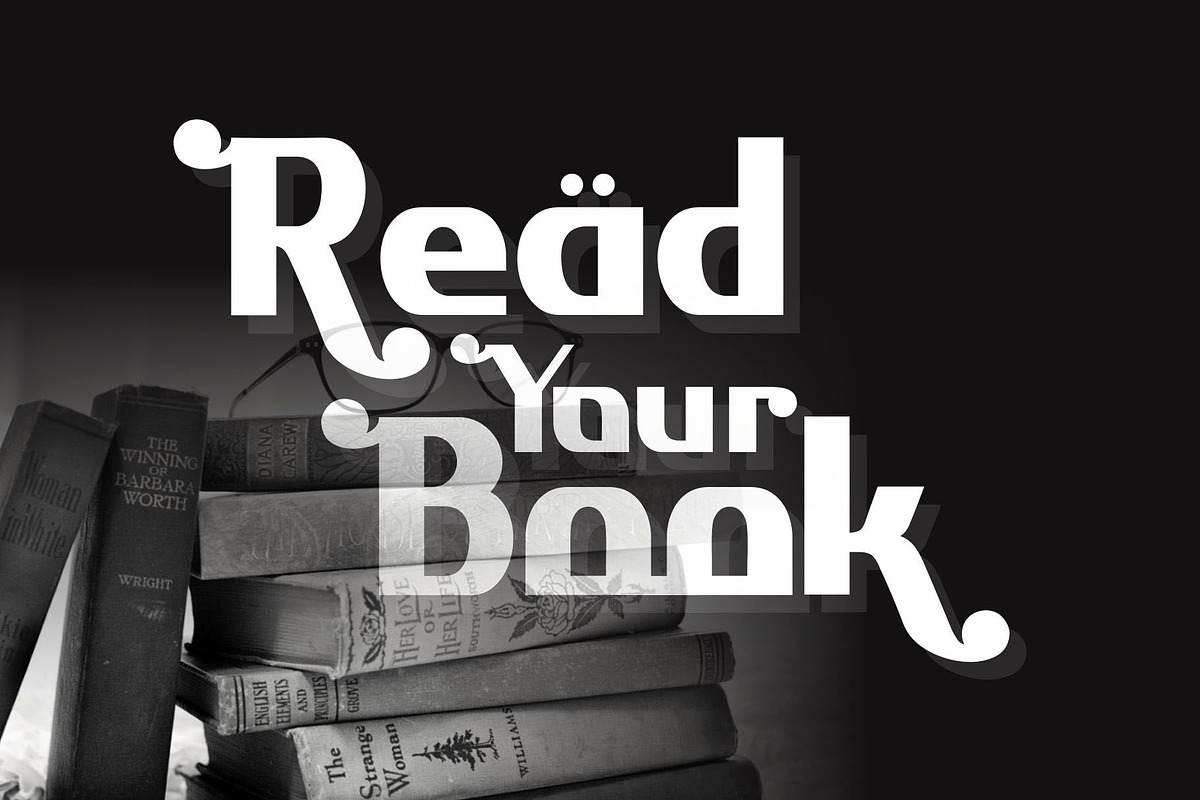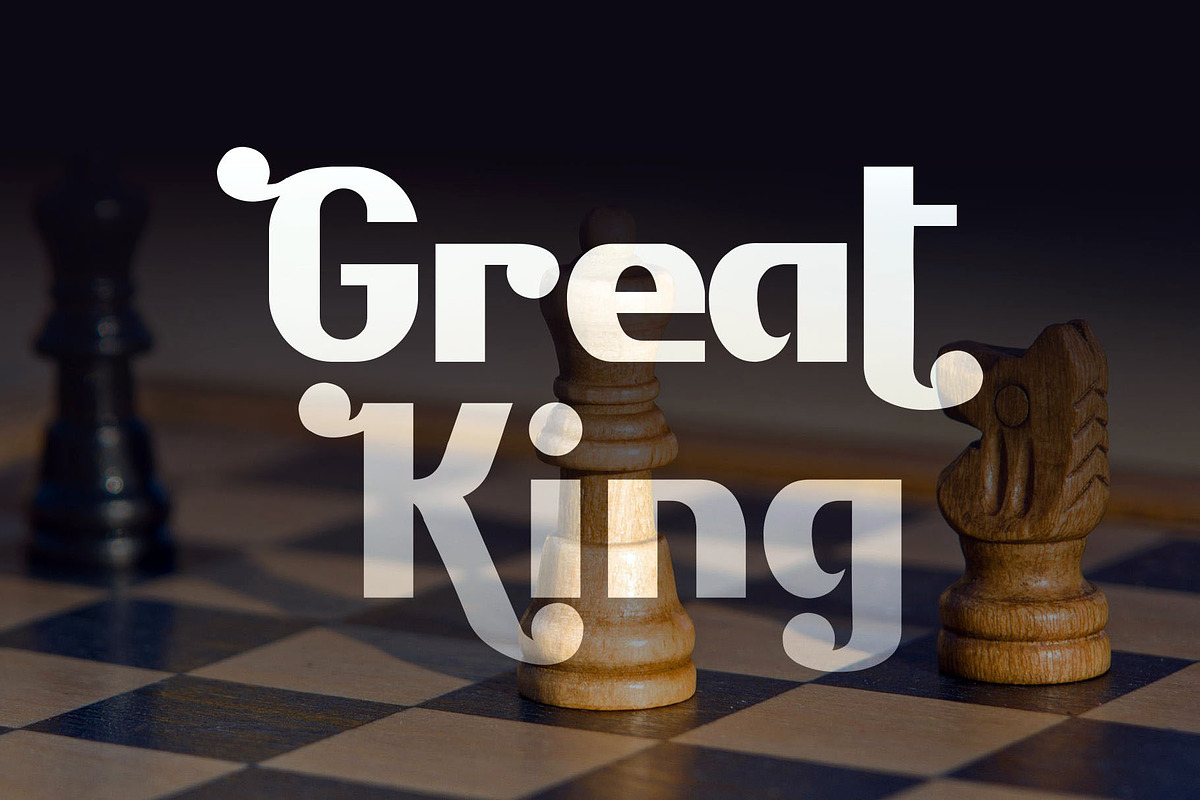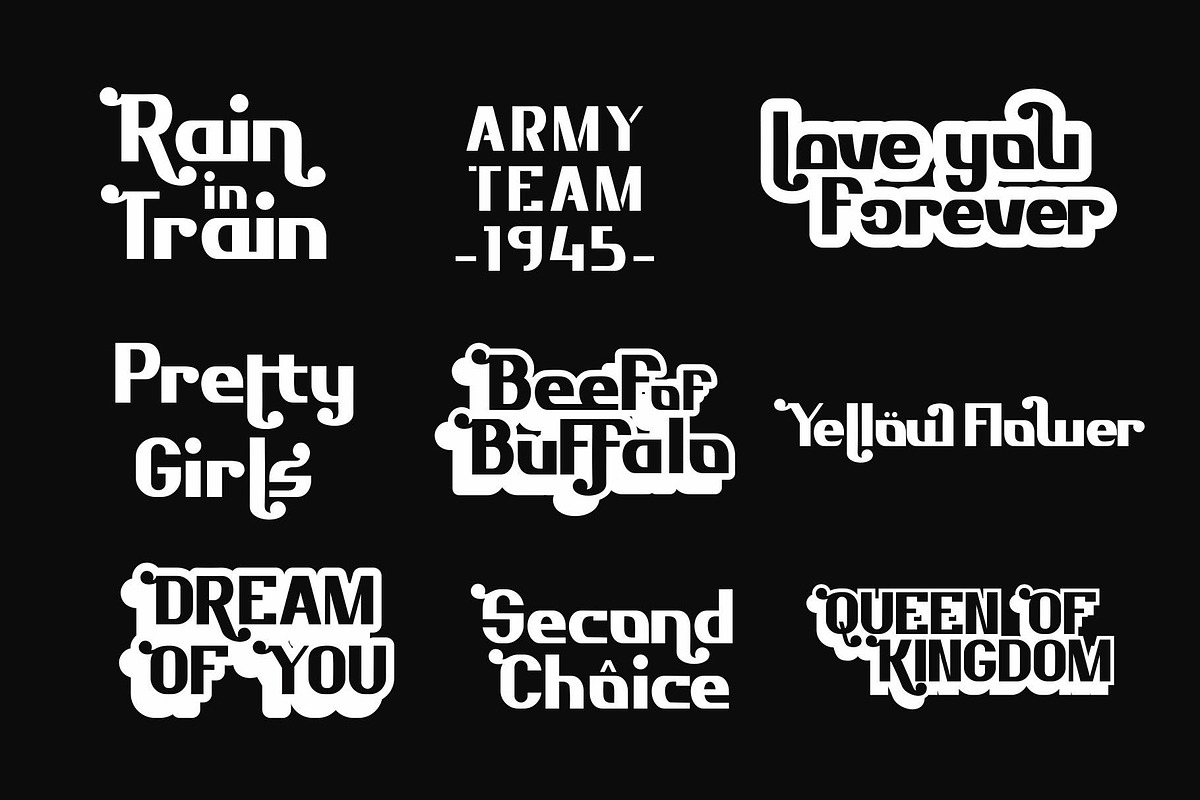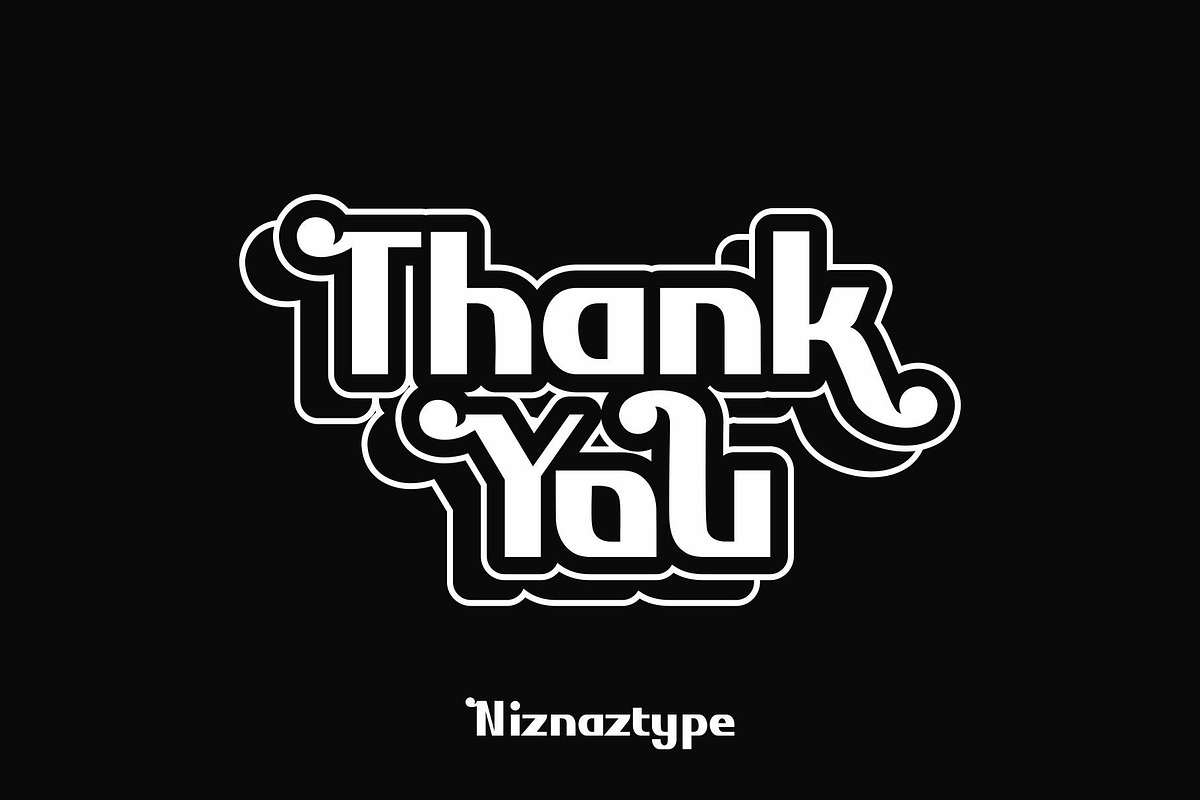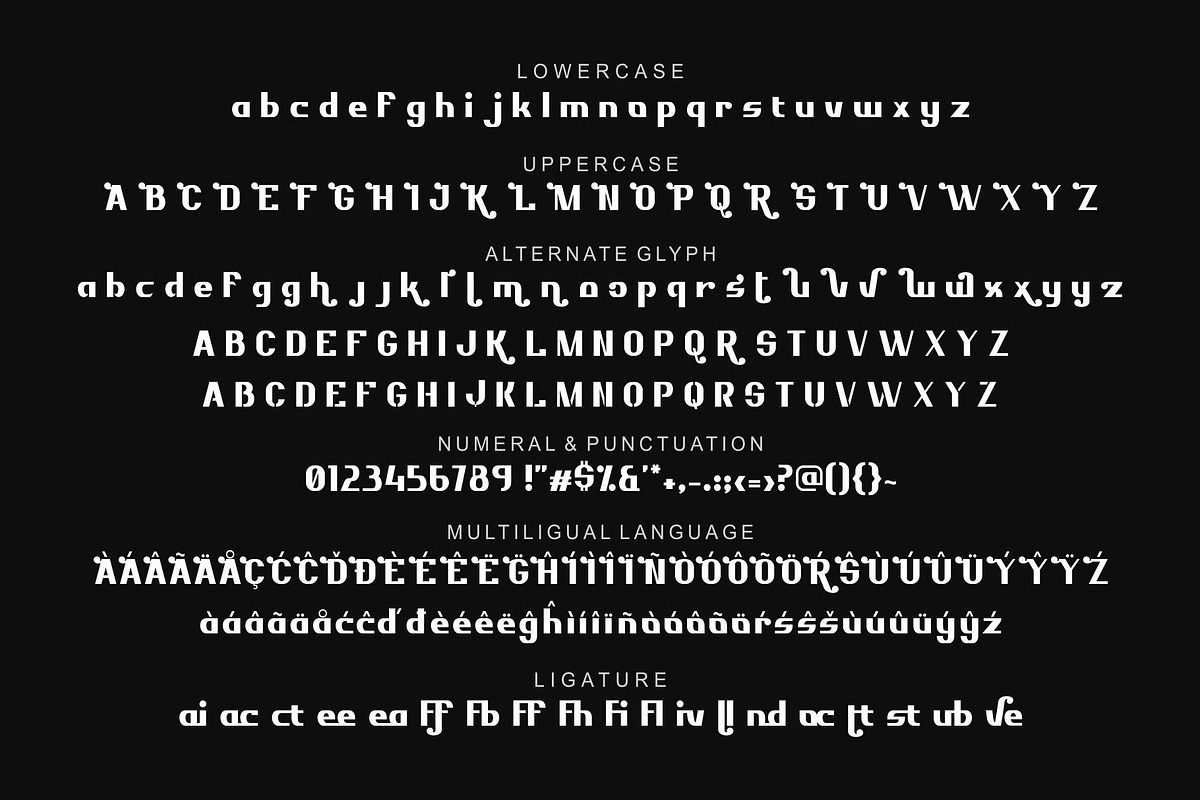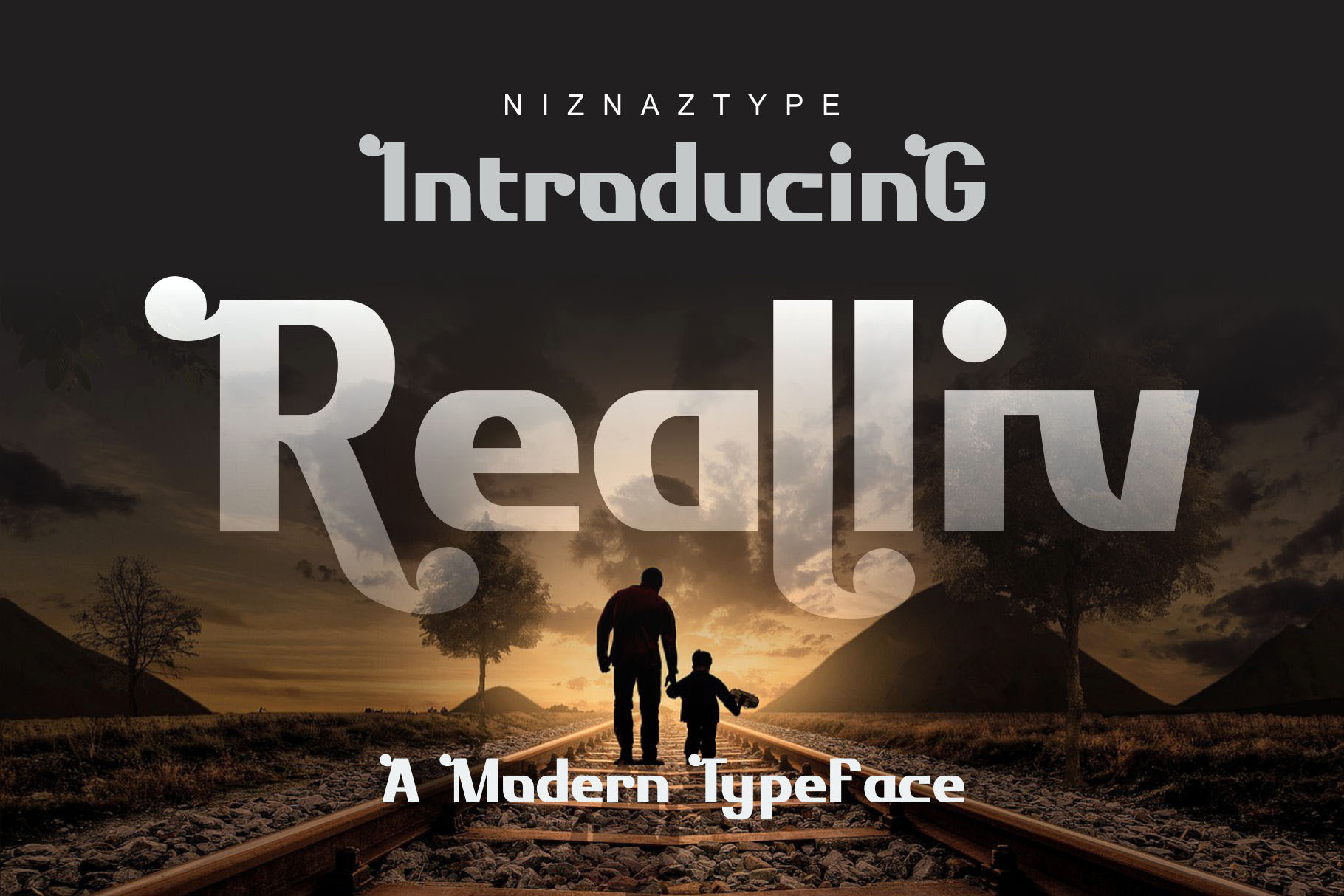
Realliv - A Modern Typeface
Realliv is a modern font with slab serif style. Suitable for poster, title, adversitement, product designs that use a high quality writing font. Realliv give a taste of your design to be more modern but also this font have a gothic and blackletter style. This font save in three formats, TTF OTF anf WOFF. Realliv consist of uppercase, lowercase, numeral, punctuation, alternate glyph, multilingual language and ligature. Please, enjoy it with Realiv a modern typeface. Send me email in emnazar@gmail.com if you have any question. Thank a lot